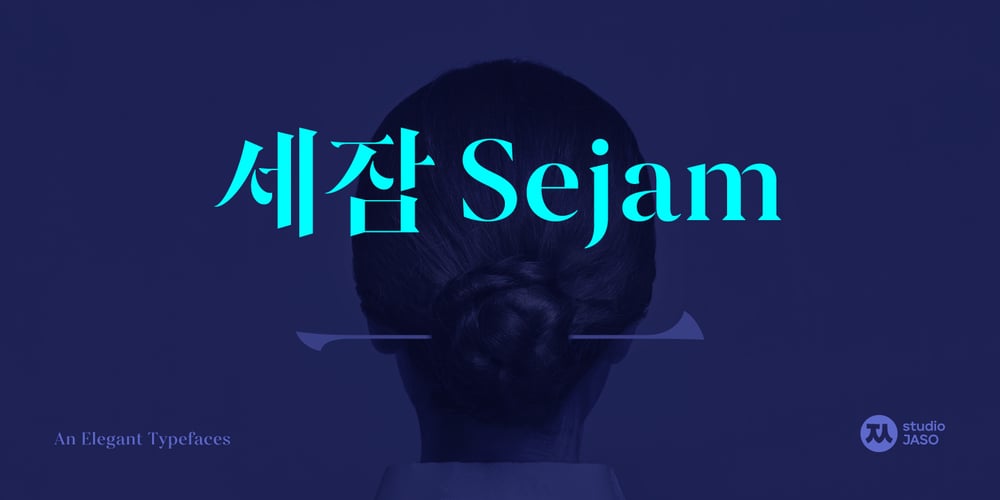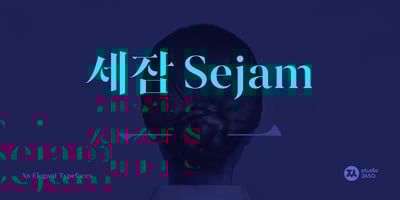
Sejam Font Family was designed by StudioJASO and published by StudioJASO. Sejam contains 9 styles and family package options. ✔ Sejam means a thin binyeo, a Korean traditional ornamental hairpin✔ Features remarkably slender horizontal stroke and graceful, decorative serif✔ Its concise and neat shape follows modern aesthetics while the high contrast and traditional symmetry give a refined impression.✔ Suitable for various uses including luxury brands, posters, packaging✔ Supports a variety of OpenType Features such as Ligature, Localized forms✔ Provides 3000+ glyphs of more than 60 Latin-based languages, including Korean